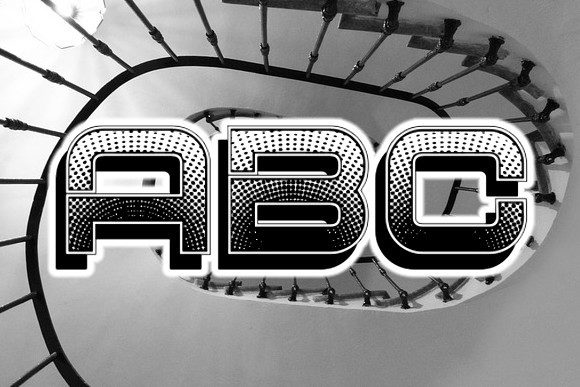
Introduction to Monochrome Font
Enter the Monochrome Font, a simple yet striking display font that’s about to become your new go-to design resource. With its high-quality design and versatility, this font is a game-changer for designers looking to elevate their work. Plus, its transparent background makes it easy to layer and customize to fit your unique style.
Key Features of Monochrome Font
- High-quality design resource ideal for creative projects, offering a range of stylish and modern characters.
- Monochrome Font features a transparent background, allowing for effortless layering and blending with other design elements.
- Each character is meticulously crafted to ensure high resolution and crisp details, perfect for use in print or digital applications.
- Unique characteristics include a bold and geometric design aesthetic, making it an excellent choice for modern and minimalist designs.
Honest Review: Monochrome Font
As a designer, I’m always on the lookout for high quality design resources to elevate my creative projects. The Monochrome Font is one such resource that caught my attention.
- Perfect for minimalist designs
However, there are a few limitations: ⚠️ The font is a bit limited in terms of character sets, which may not be ideal for projects that require a wide range of characters. Additionally, the font may not be suitable for projects that require bold or italic text.
Overall, I’m impressed with the Monochrome Font. It’s a great design resource for designers who want a clean and modern look. While it may have some limitations, it’s a great option for minimalist designs and is definitely worth considering for your next creative project.
A Monochrome Font is a valuable design resource for creating high-quality visual content. This versatile font can be used in various creative projects, from graphics to presentations, thanks to its transparent background and clean design.
The Monochrome Font is ideal for:
- Creating minimalist graphics and logos
- Designing presentations and documents
- Adding text to images and graphics